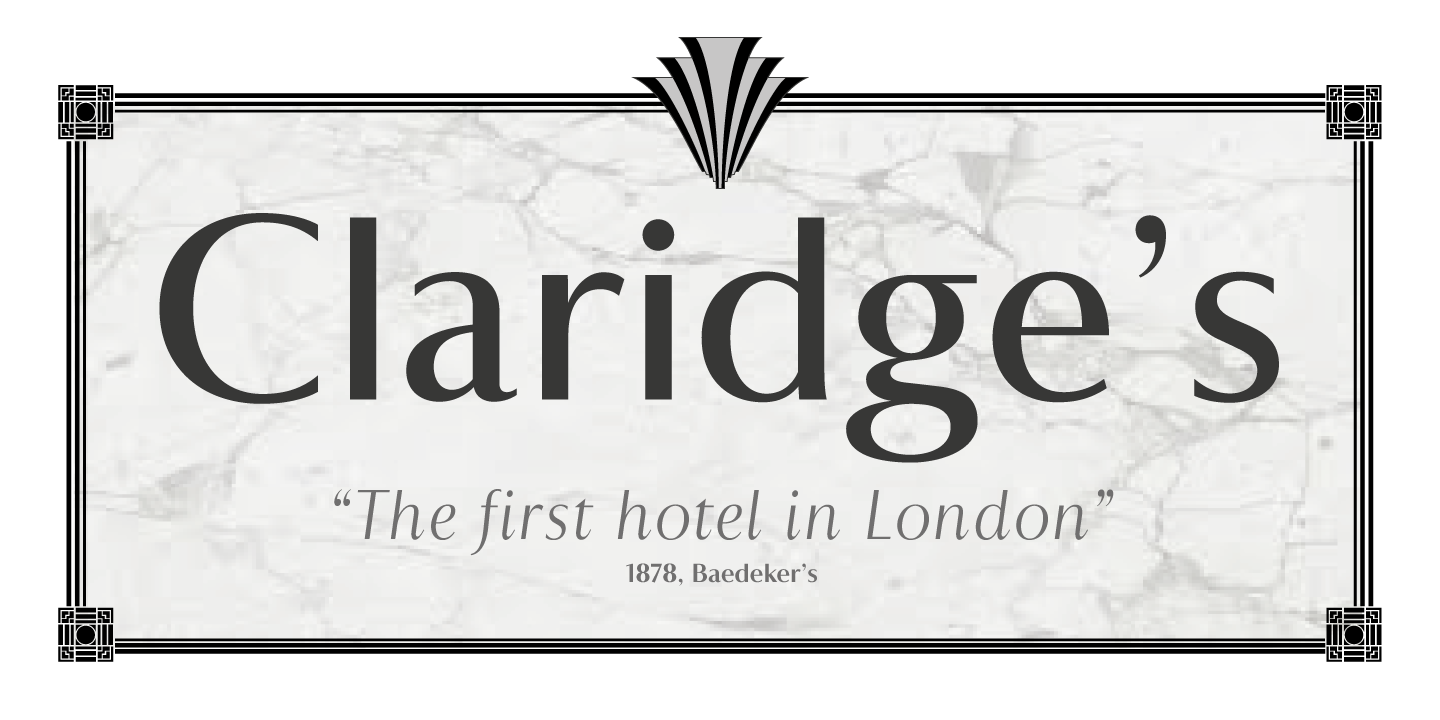
Astoria Classic Sans Font Free Download is a timeless sans-serif typeface that combines classic simplicity with modern functionality. Perfect for corporate branding, editorial design, website typography, product packaging, and professional presentations.
What makes Astoria Classic Sans Font so exciting is its clean, geometric structure paired with balanced proportions, creating a versatile font that is both highly readable and stylish. It’s designed to perform well across print and digital media alike.
The Astoria Classic Sans Font family includes a variety of weights such as Light, Regular, Medium, Bold, and Black, providing designers with ample flexibility to establish hierarchy and emphasis.
Whether you're working on a corporate identity or sleek user interfaces, Astoria Classic Sans Font Free Download delivers clarity and professionalism to your projects. Remember, it’s free for testing, but commercial use requires a license. Elevate your designs with this elegant, classic sans-serif font.